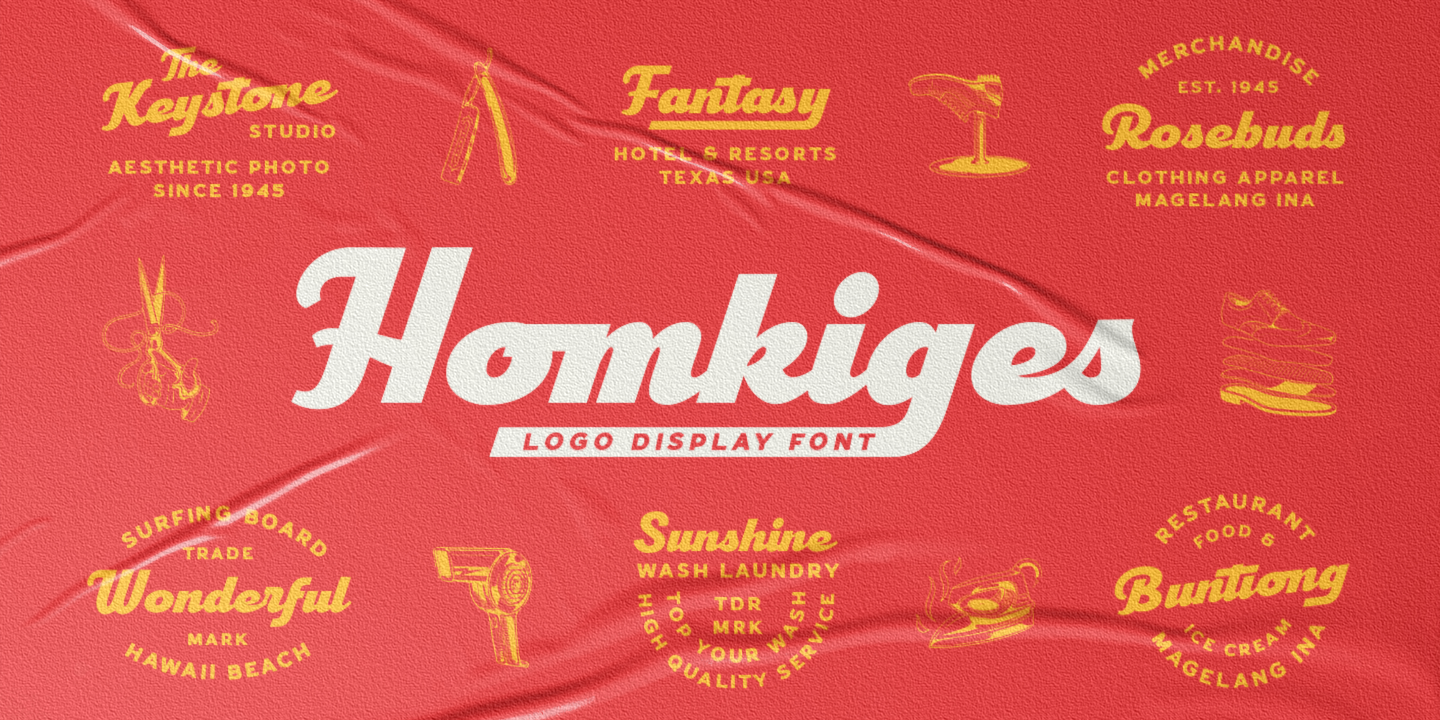
Homkiges
Designed by Edi Gunawan, Homkiges is a multiple classification font family. This typeface has thirteen styles and was published by Edignwn Type.
The font collection is called “Homkiges”, it is a display font for logotype. These collections contain script and sans serif font. Every font comes with 4 style typefaces (regular, rounded, rough and stamp). Homkiges give more extras 3 pack illustrations (shoe, tailor and barber). This script font includes some alternates and ligatures. This texture style includes some different stamp for uppercase and lowercase in sans serif. The Homkiges matches apply in some designs such as the logo, poster, label, badge, packaging, t-shirt, branding, quotes and more custom design.
Homkiges features :
- 4 style typefaces (regular, rounded, rough and stamp)
- Uppercase, lowercase, numeral, symbol, punctuation, ligature and alternate in script font
- All-caps, numeral, symbol and punctuation in sans serif font
- Oblique in sans serif font
- Multilingual
Homkiges includes :
- 13 fonts (script, sans serif and dingbat)
- 44 hand-drawn illustrations in dingbat